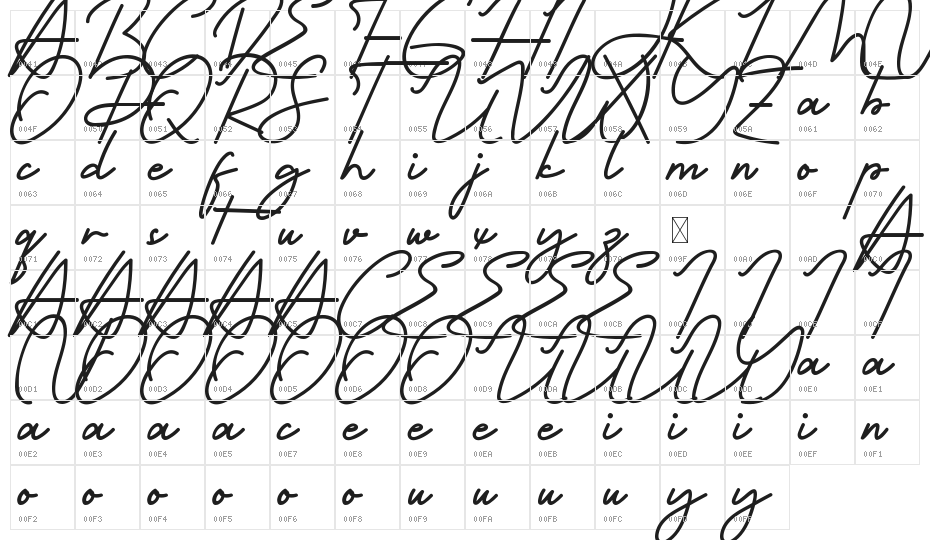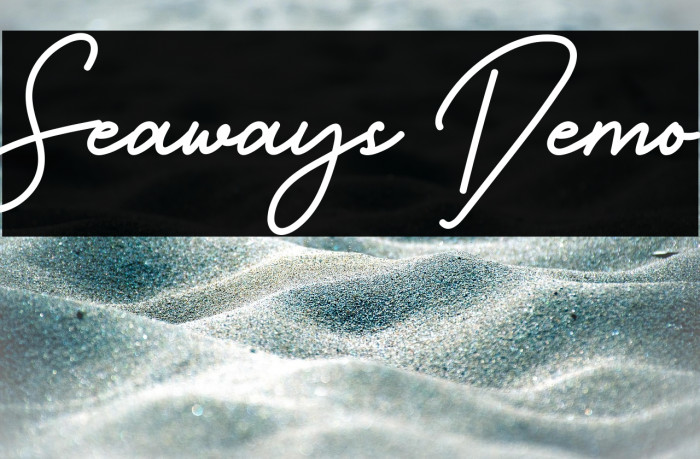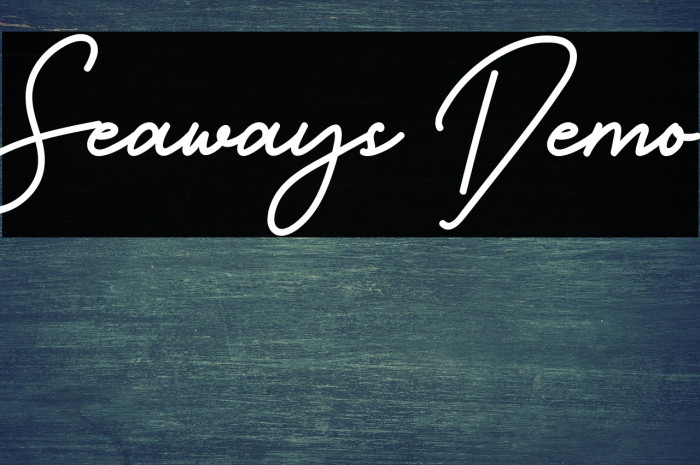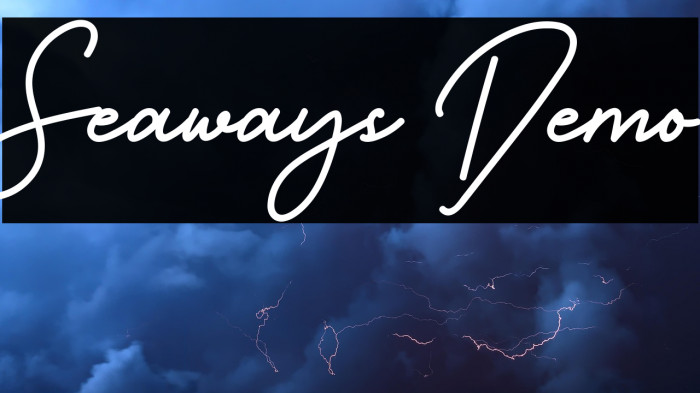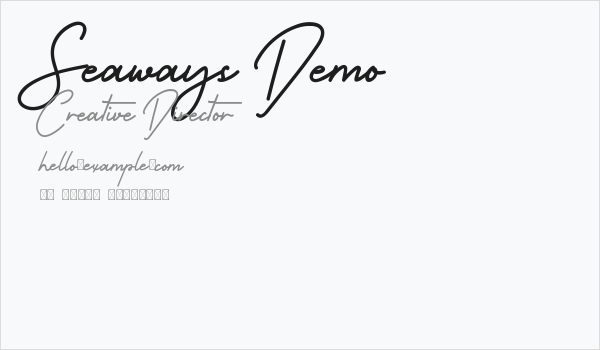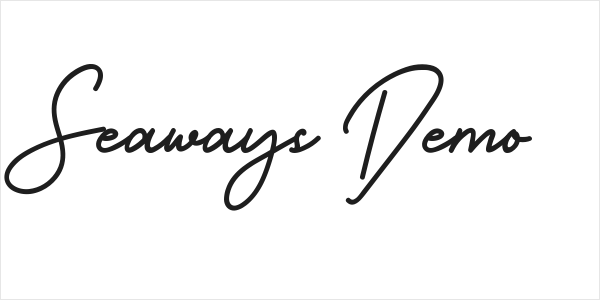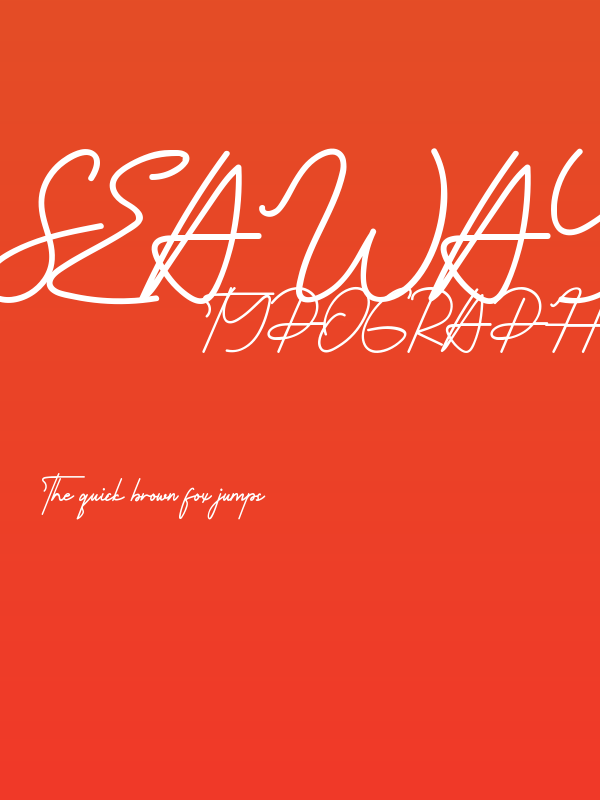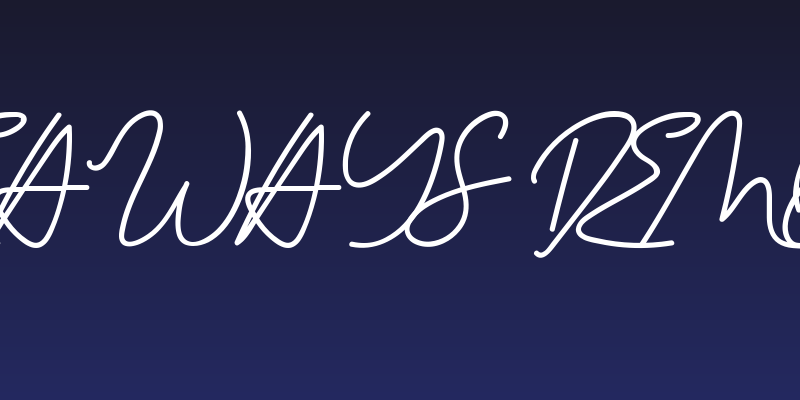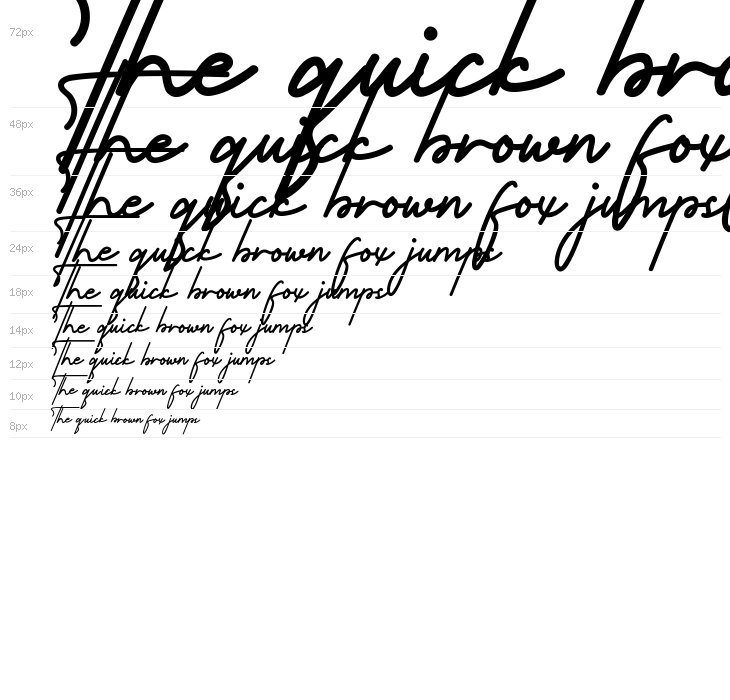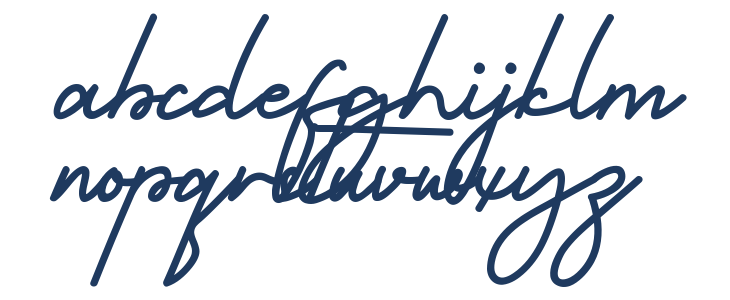
Seaways Demo Font
Seaways Demo Description
This font features a flowing, cursive style that mimics elegant handwriting. The uppercase letters are tall and slender, with graceful loops and curves that give a sense of fluidity and motion. The lowercase letters maintain a consistent style, with smooth connections between each character, enhancing the script's cohesive appearance. The font includes both uppercase and lowercase alphabets, numbers, and a selection of special characters, all maintaining the same cursive aesthetic. The overall look is sophisticated and artistic, suitable for projects that require a personal touch or a sense of elegance.
Overall StyleElegant
Use CaseLogos, Invitations, Personal Branding
Proposed ProjectsIdeal for wedding invitations, greeting cards, personal branding, and elegant logo designs.